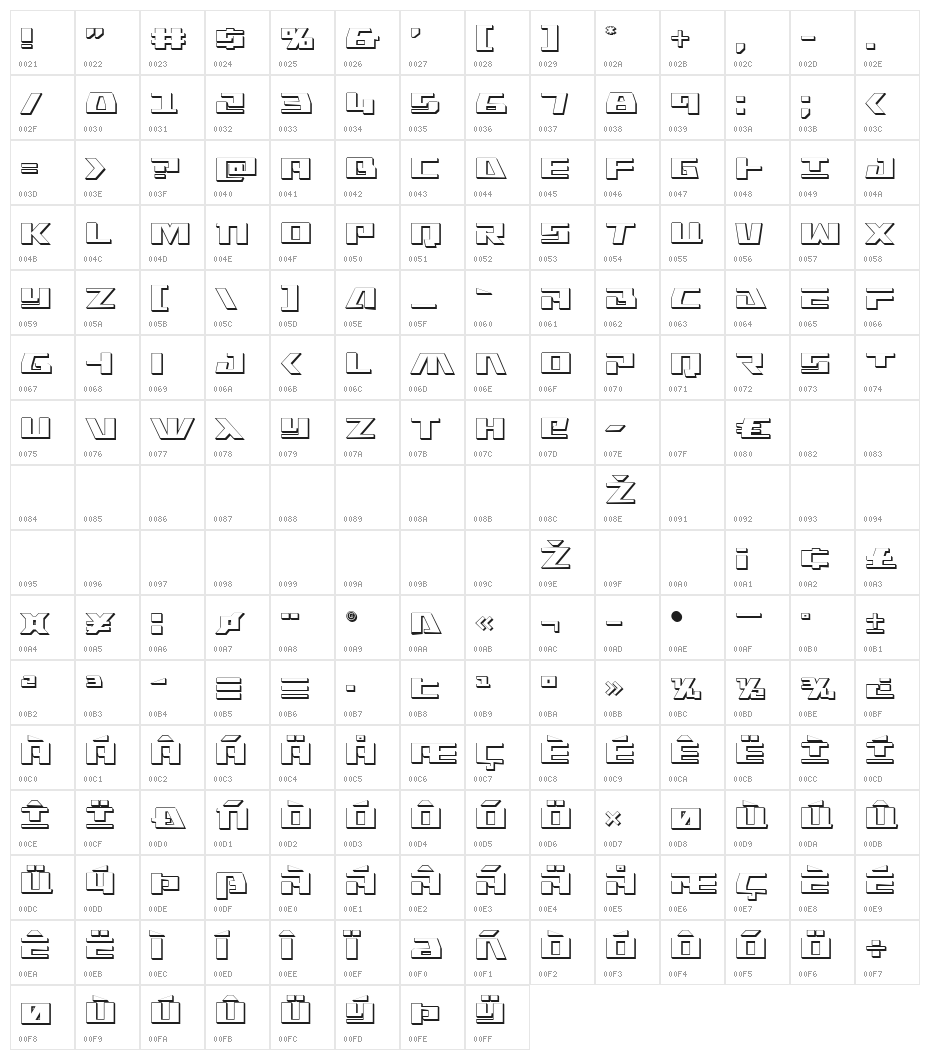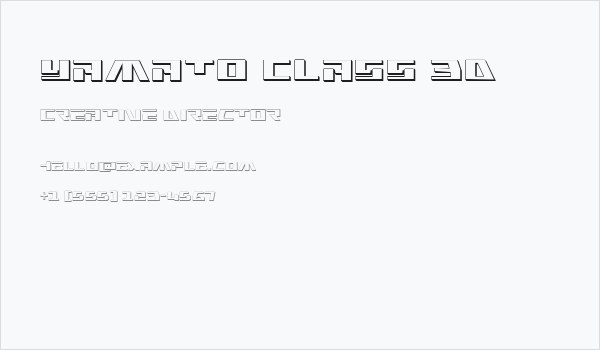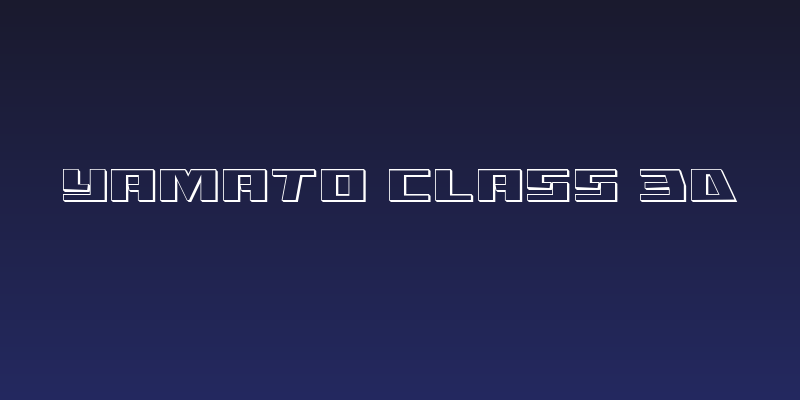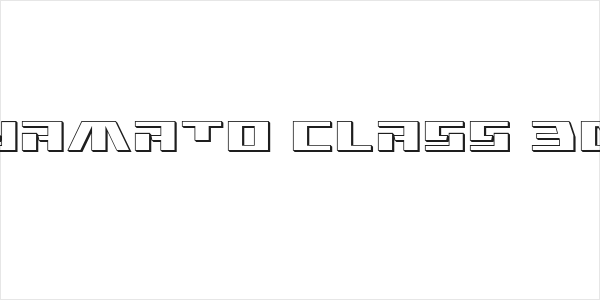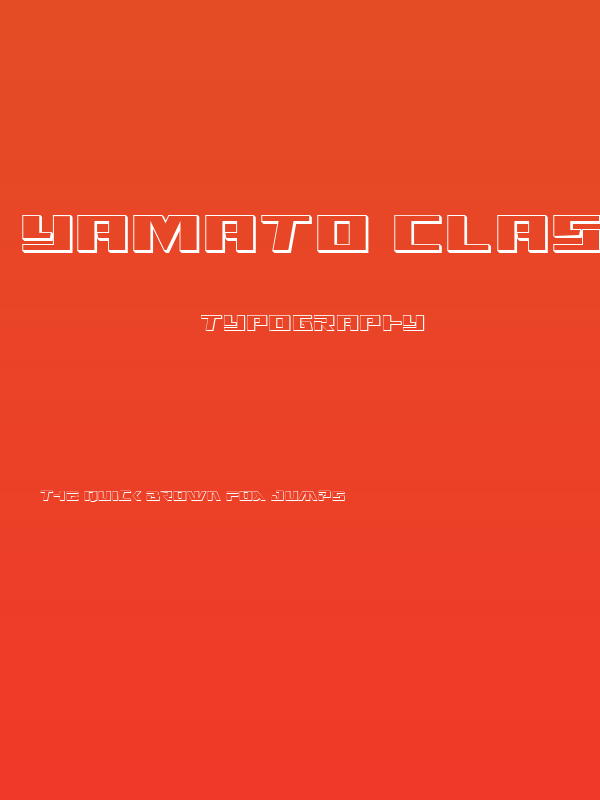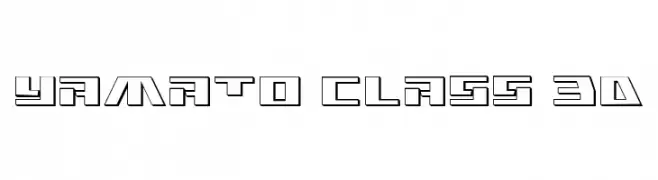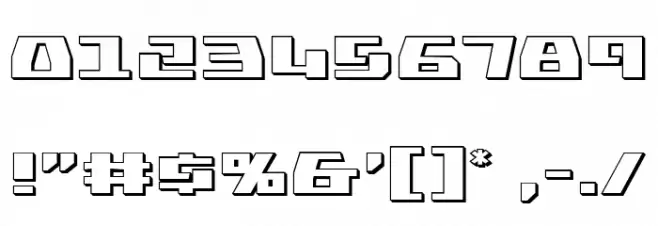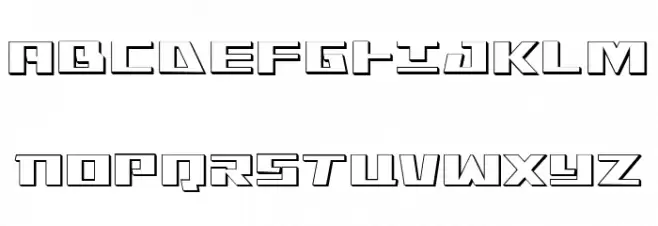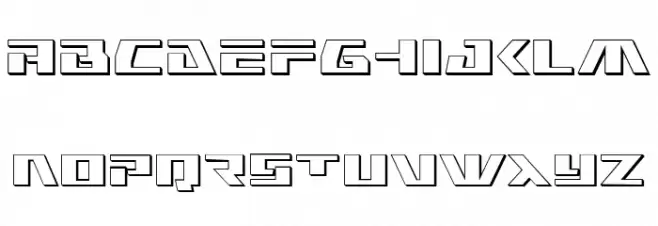
Yamato Class 3D Font
Yamato Class 3D Description
Geometric, angular outline font with a futuristic and mechanical appearance. All characters are uppercase and constructed from straight lines and sharp corners, giving a technical and industrial feel. The strokes are uniform in thickness, and the letterforms are wide and blocky with minimal curves.
| Width | Expanded |
| Overall Style | Futuristic, Mechanical, Decorative |
| Use Case | Headlines, Logos, Posters, Display text |
| Proposed Projects | Tech branding, sci-fi posters, video game titles, robotics or engineering presentations, digital interfaces. |